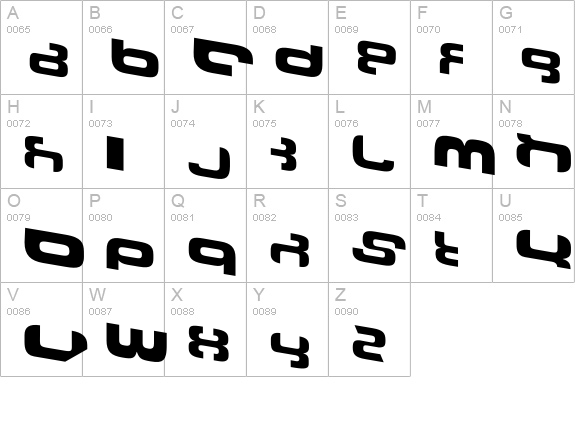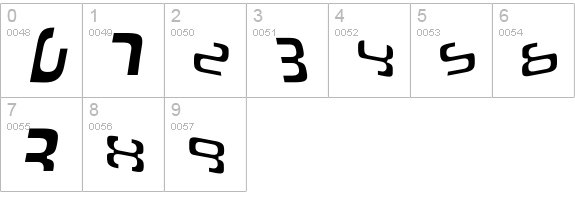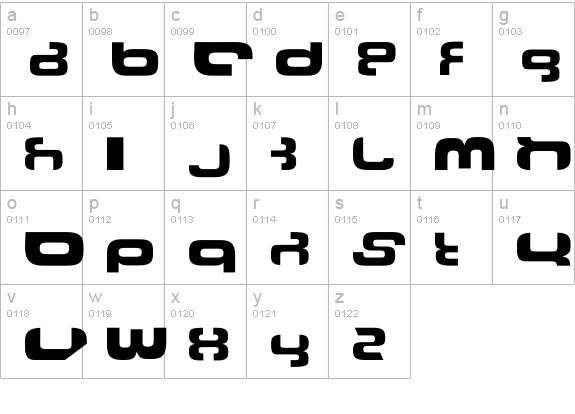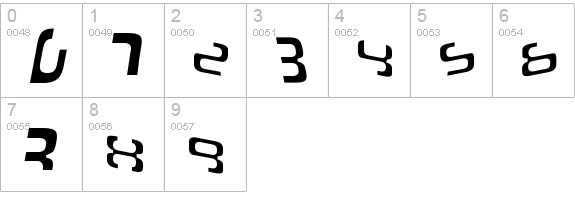
Euroor Font Details
Euroor font is a sleek and modern typeface that exudes elegance and sophistication. With its clean lines and contemporary feel, Euroor is perfect for a wide range of design projects, from branding to editorial design. This versatile font features a unique blend of geometric shapes and subtle curves, creating a harmonious balance that is both eye-catching and easy to read. What sets Euroor apart is not just its striking design, but also the fact that it is completely free to download. That's right – you can access this premium font at no cost from FontsMarket.com. Whether you're a seasoned designer looking to add a fresh touch to your work or a newcomer in need of a professional font for your projects, Euroor is the ideal choice. Download it today and elevate your design game with this stylish and versatile typeface.